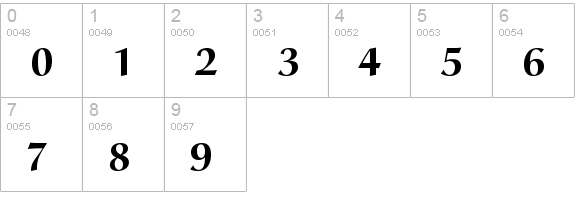
AlcuinEF-Bold Font Details
AlcuinEF-Bold is a strong, high-contrast variant in the AlcuinEF typeface family \xE2\x80\x94 well suited to headlines, attention-grabbing titles, and strong calls-to-action.
AlcuinEF-Bold font is a bold and striking typeface that exudes elegance and sophistication. Its robust letterforms make a powerful statement and are perfect for creating eye-catching titles and headlines. The font's clean lines and modern aesthetic give any design a contemporary edge, while still maintaining a classic feel. What sets AlcuinEF-Bold font apart is that it is not only stylish and versatile, but also free for all to use. That's right - this high-quality font is freely available to download at FontsMarket.com, making it accessible to designers, creatives, and enthusiasts alike. Whether you're working on a branding project, poster design, or any other creative endeavor, AlcuinEF-Bold font is sure to make a bold impact. Elevate your designs with this exceptional typeface today!